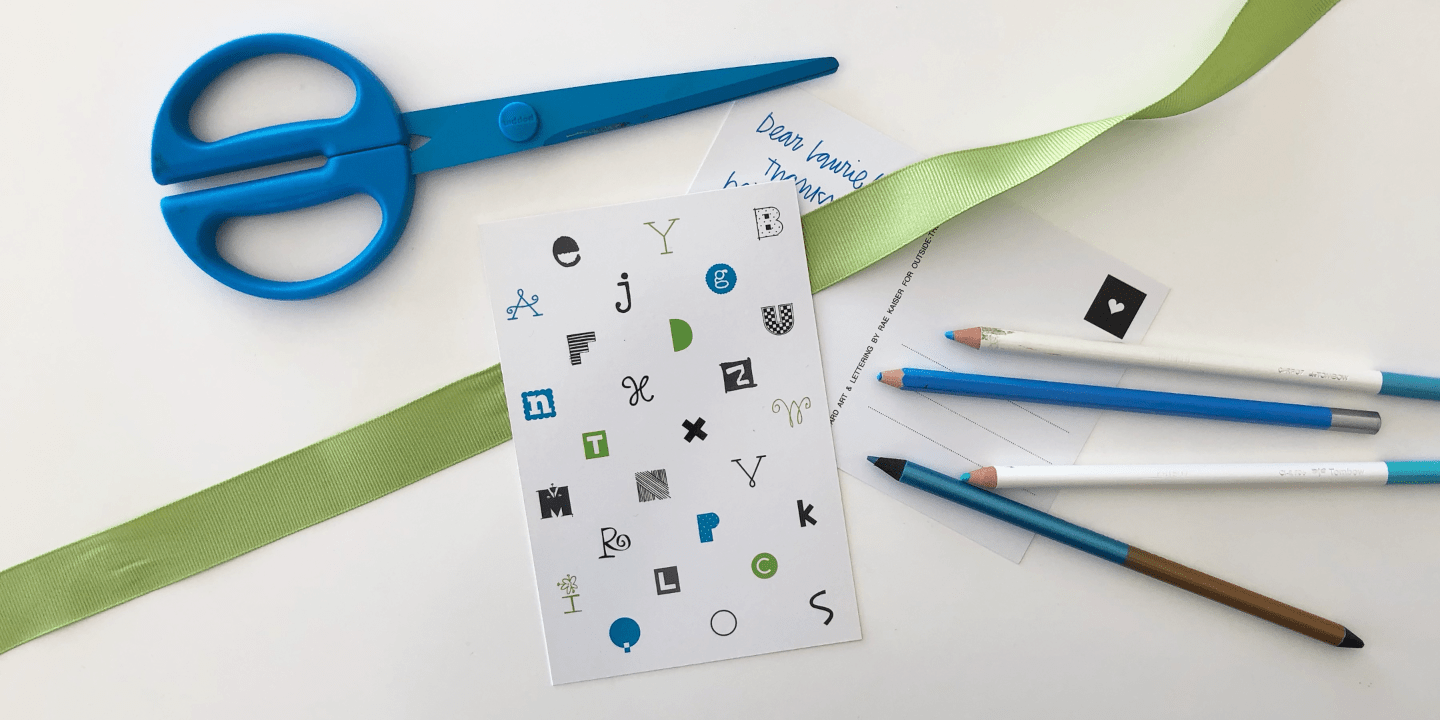
Drop Cap One
Drop Cap One is a drop cap or an initial cap font. Even though it has all the letters of the alphabet it is not an alphabet font to be used for headlines or body copy. It has no kerning or punctuation except a period. It does have accent marks.
There are basically 2 alphabets in this font. The lighter letters are lower case and the darker letters are upper case. The light and dark letters are interchangeable.
While a fun desktop font the real inspiration for this font was my need for a webfont for initial caps for blogging. It could also make a great scrapbooking font too. Lots of uses for this quirky little font.